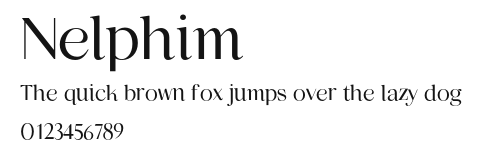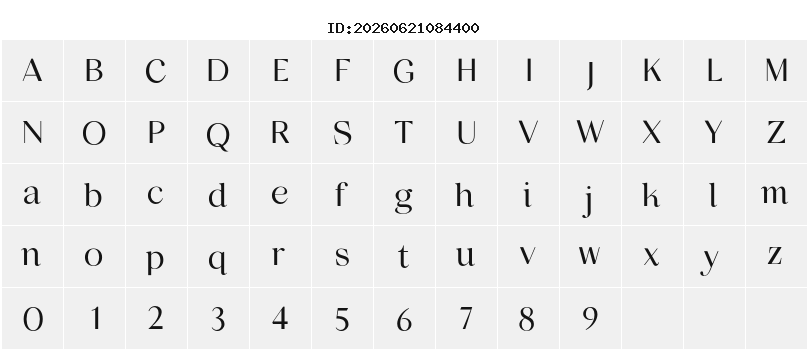
Nelphim  Preview
About Nelphim .otf
Nelphim .otf is a modern, elegant sans-serif font designed for ultimate readability and visual harmony. Perfect for branding, headlines, web design, and print materials.